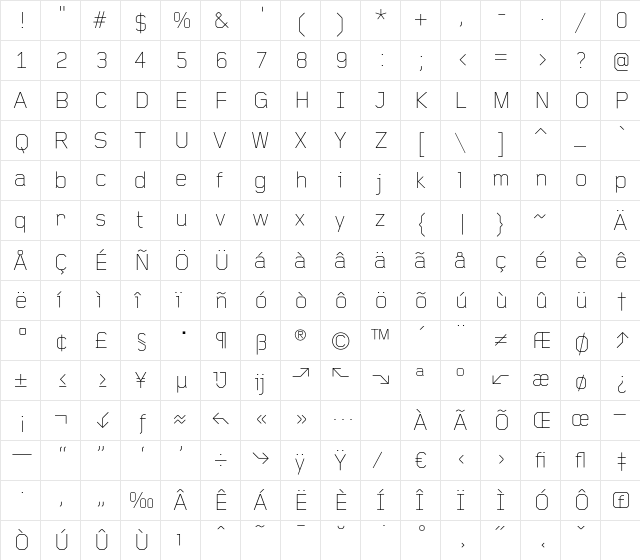
FoundryGridnik Light
Design Context for FoundryGridnik Typeface
FoundryGridnik offers clean, dependable letterforms without strong stylistic allegiance, making it a practical choice for designers who need flexibility. The delicate stroke weight brings airiness and refinement to layouts.